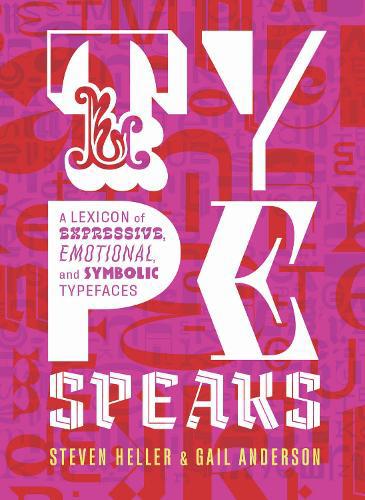
Type Speaks
An essential resource to using contemporary typefaces for effective communication
Type is the handwriting of the 21st century, lending its expressive voice to the language of all written communication. Type Speaks is the first book to explore type as a medium that conveys emotions, concepts, and ideas, filled with hundreds of new fonts available through digital foundries. Some exude joy, radiate serenity, or jangle the nerves; some sell or persuade or command or seduce. More than ever before, a great range of type choices, both conventional and unconventional, is available to graphic design professionals and nonprofessionals alike. In this new world, Type Speaks will be an essential reference for anyone crafting messages in words.